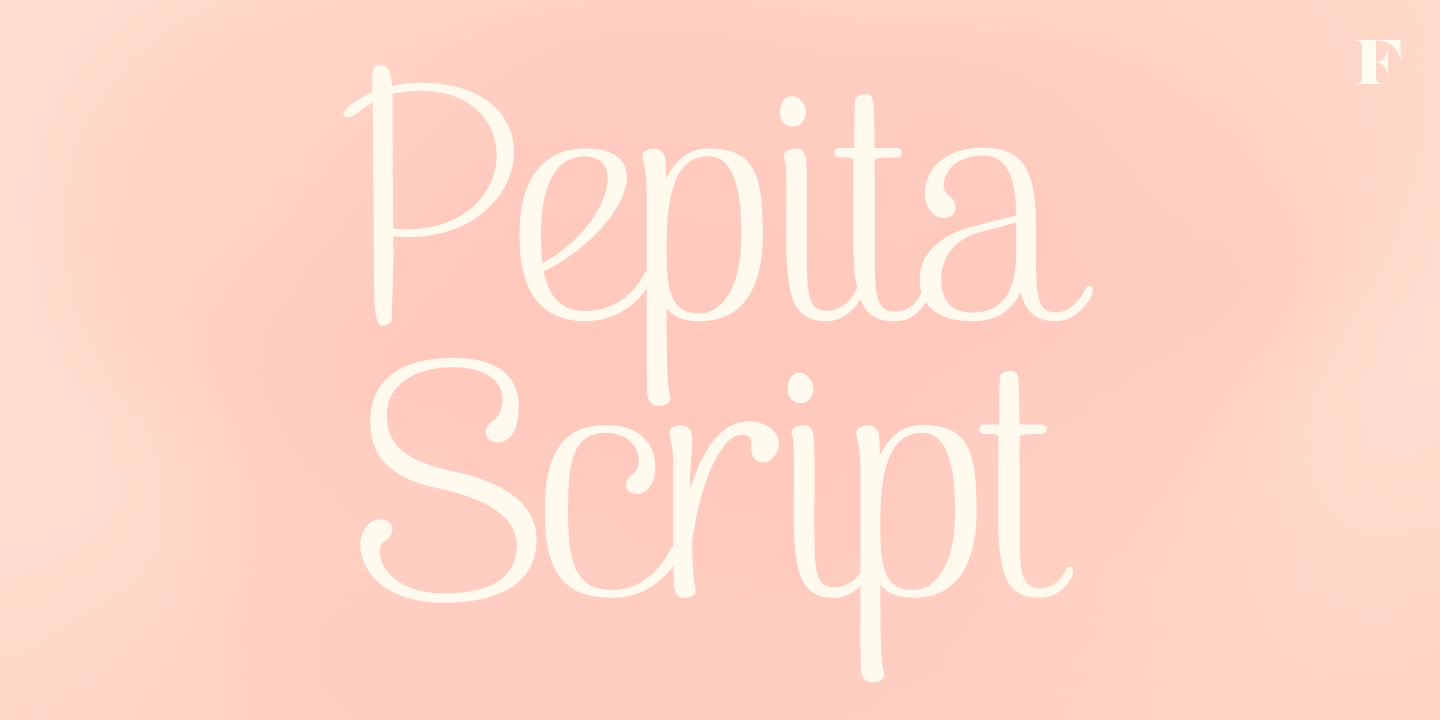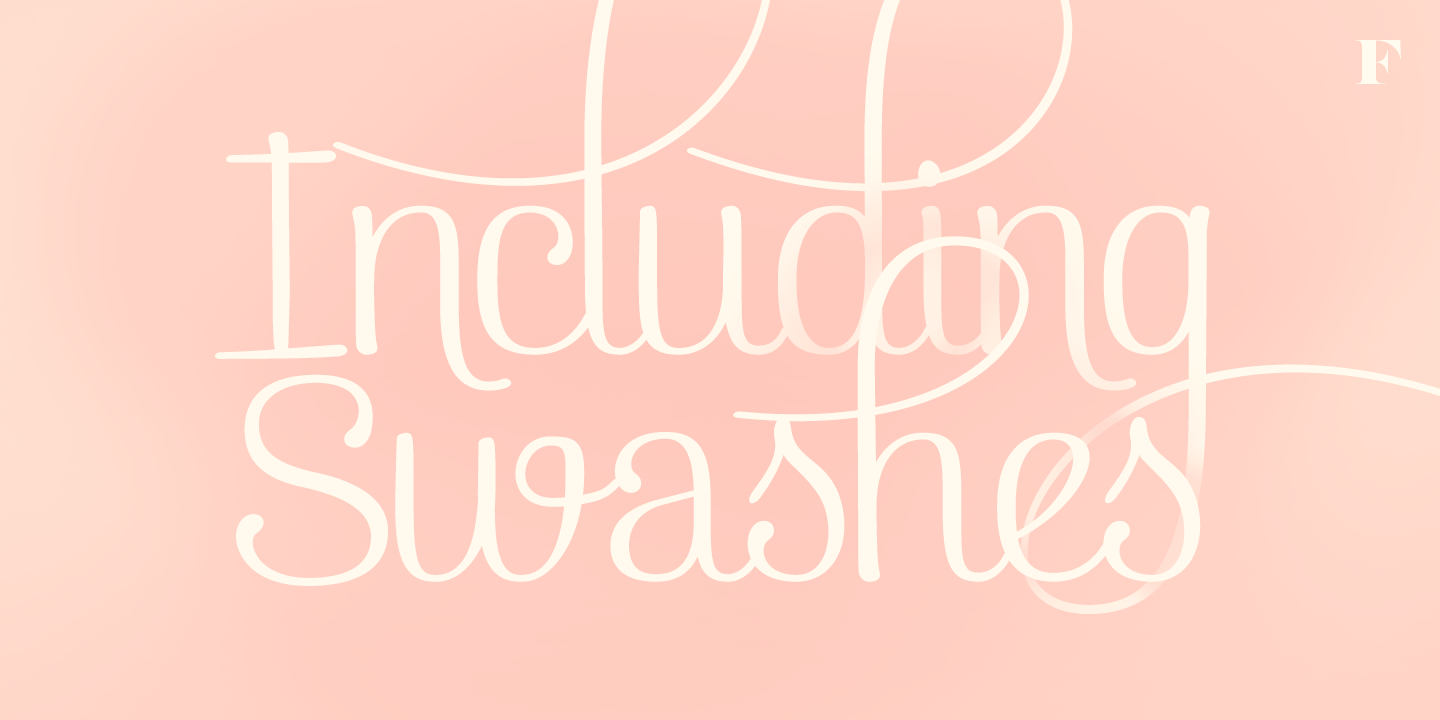
Pepita Script
Pepita Script is a casual handwritten script family with an easy, expressive feel. Its flowing letterforms bring a personal, informal touch to the page, making it a strong choice for work that needs warmth and movement rather than a rigid, polished look.
With 6 styles included, the family gives you room to shift the tone from upright to italic while keeping a consistent handwritten character. That flexibility makes it useful for branding, packaging, invitations, social graphics, posters, and other display-focused projects where a relaxed script can add charm and personality.
Created by Fenotype, this family suits designers looking for a script that feels approachable and lively. If your project calls for lettering with a casual voice and a hand-drawn impression, this set offers a versatile starting point.